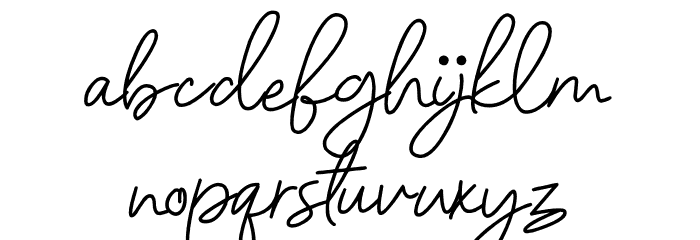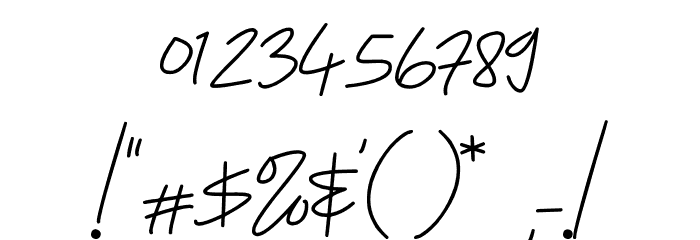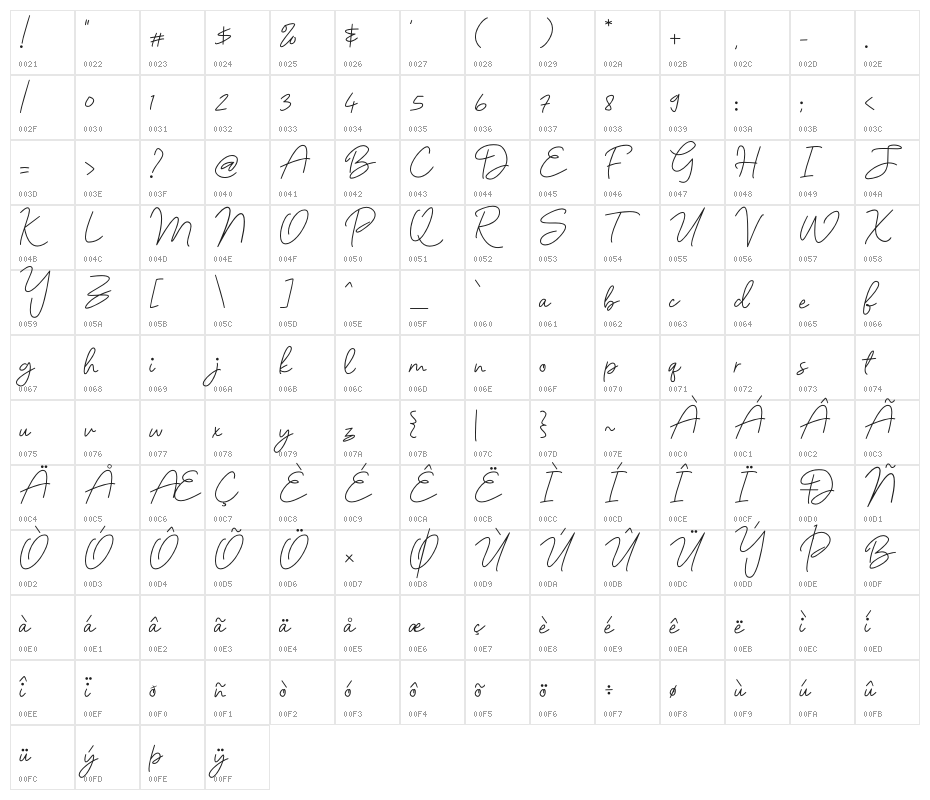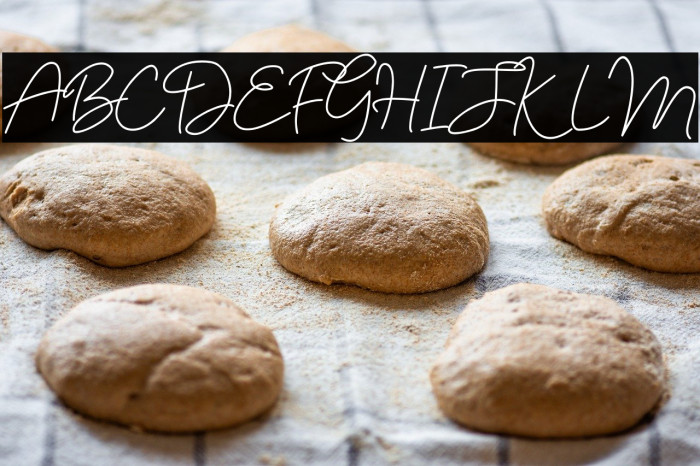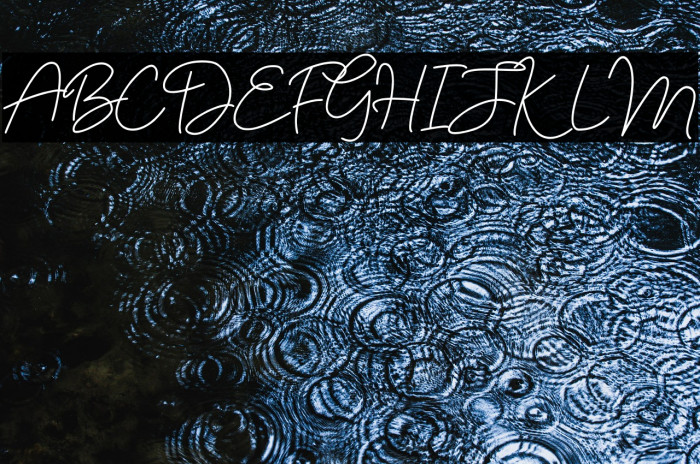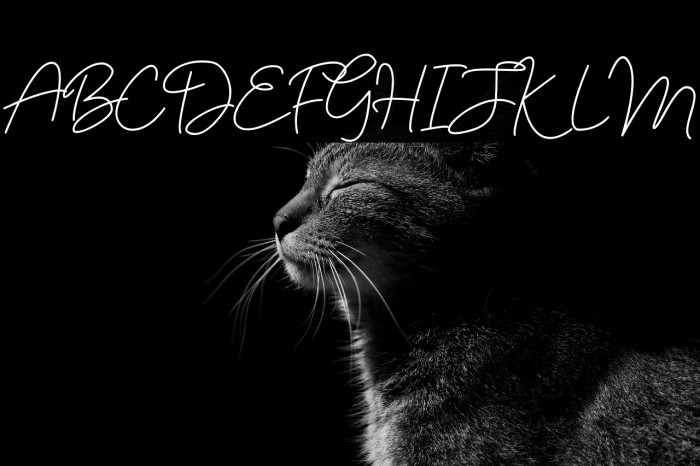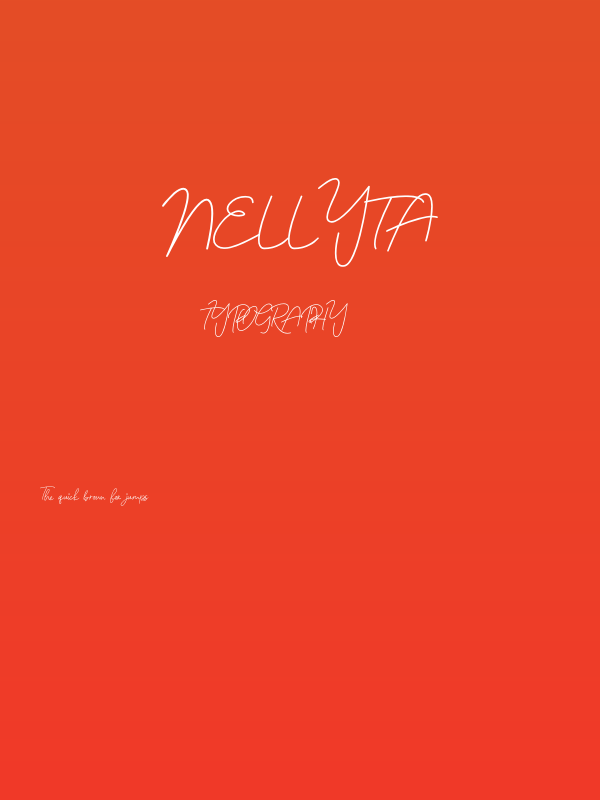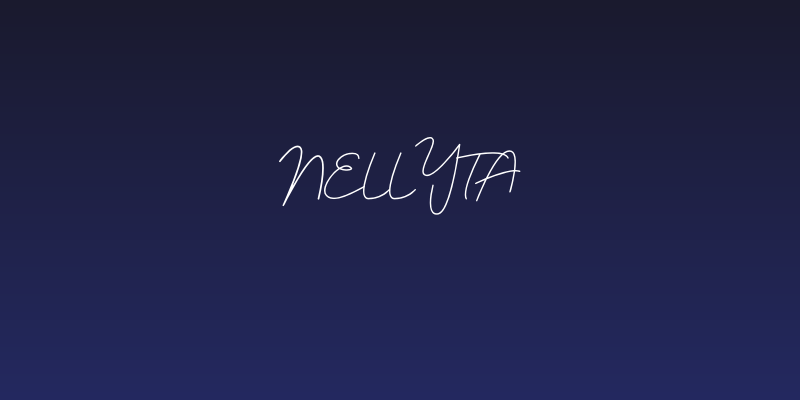
Nellyta Font
This font features a flowing, cursive style with elegant, interconnected letters that mimic the fluidity of natural handwriting. The uppercase letters are tall and slightly slanted, giving a sense of sophistication and grace. The lowercase letters maintain a consistent flow, with some characters featuring loops and swirls that enhance the overall aesthetic. The numerals are clear and maintain the cursive theme, while the special characters are creatively integrated into the design, maintaining the font's cohesive look. This font exudes a personal and artistic touch, making it suitable for projects that require a handwritten feel.
A flowing, cursive font with elegant, interconnected letters and a handwritten aesthetic.
- Font: Nellyta
- Proposed Projects: Ideal for wedding invitations, personal branding, greeting cards, and artistic projects that require a personal touch.
- Category: Script
- Overall Style: Elegant, Handwritten
- Use Case: Logos, Invitations, Personal Branding